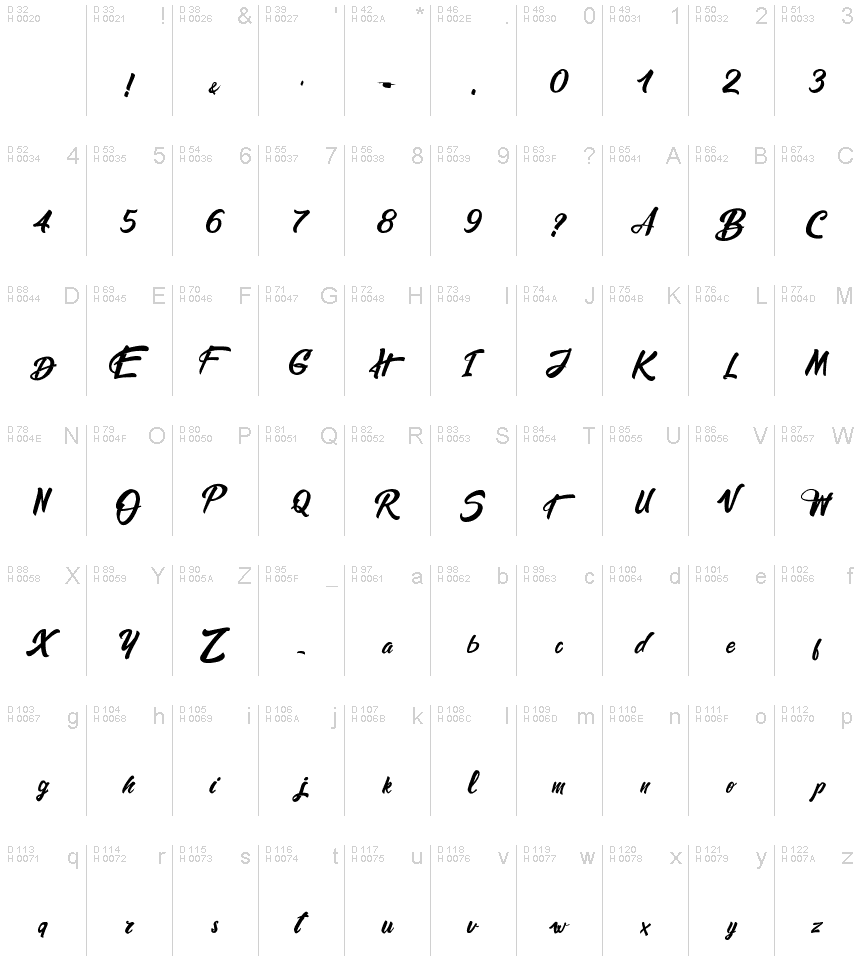
Cubiqle Part
Cubiqle Part, the captivating handwritten font by Cubiq Nation, adds an artistic flair to any project. With its fluid strokes and charming imperfections, this font exudes creativity and authenticity. Ideal for branding materials, such as logos and business cards, it injects a playful yet professional vibe. Craft eye-catching social media posts or design unique invitations with Cubiqle Part's whimsical appeal. Whether you're creating a children's book cover or adding a personal touch to wedding stationery, this versatile semi-bold typeface effortlessly enhances any project with its distinctive charm. Energize your designs with Cubiqle Part!
Cubiqle Part is custom font mainly for creating custom logos.
The font has many custom glyphs created as a ligature for easier use in mobile programs
The ligature syntax is:
[Letter]*[Number]
Ex. t*3
Ex.2 L*2
In word:
Ex. L*2etter
Ex.2 N*2at*5i*1on*1
Ligature map here:
Special codes:
*nt*
*the*